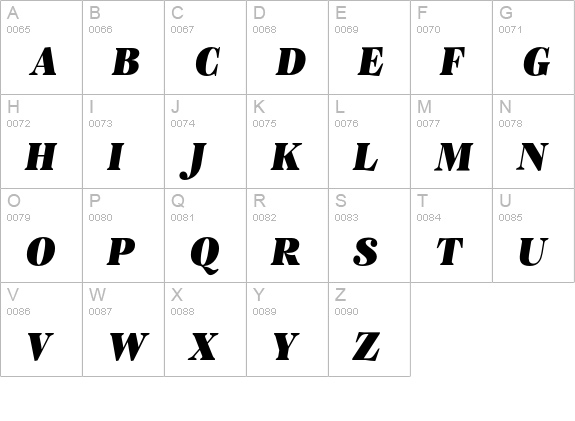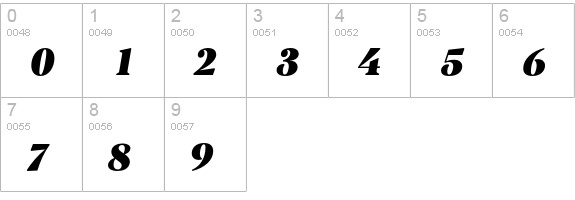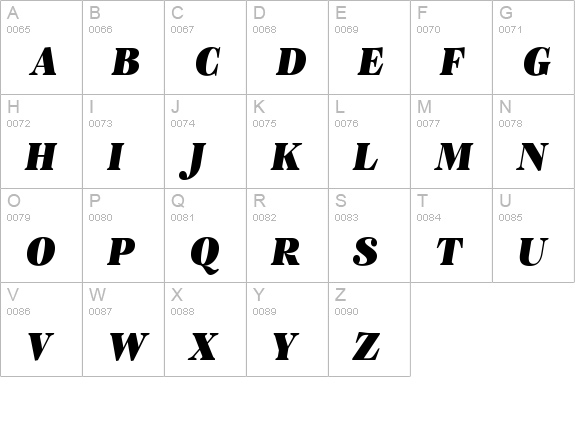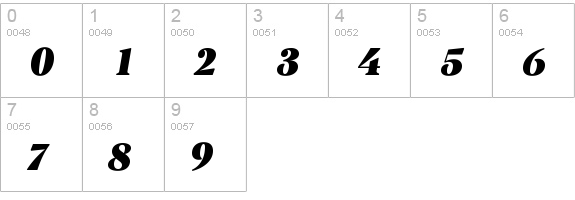
PFRegalTextPro-UBlackItalic font is a stunning display typeface that exudes elegance and sophistication. With its bold and italic design, this font commands attention and adds a touch of luxury to any project. Perfect for headlines, posters, and branding materials, PFRegalTextPro-UBlackItalic is sure to make a statement. The best part is that this font is available for free download at FontsMarket.com. This means you can easily access this premium font without any cost, making it a valuable addition to your font collection. Don't miss out on the opportunity to elevate your designs with PFRegalTextPro-UBlackItalic font - download it for free today!